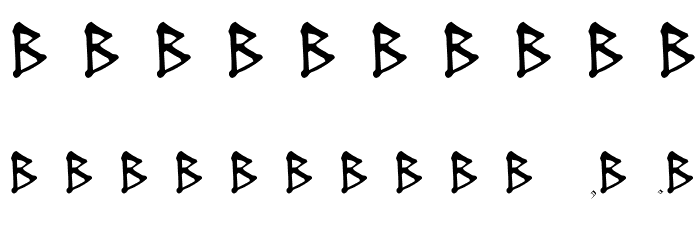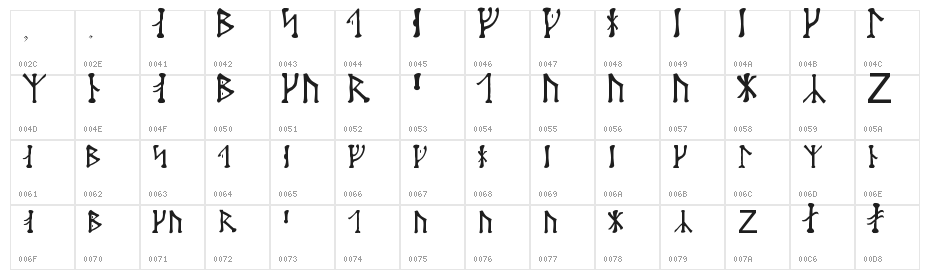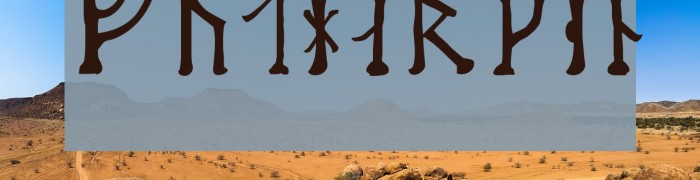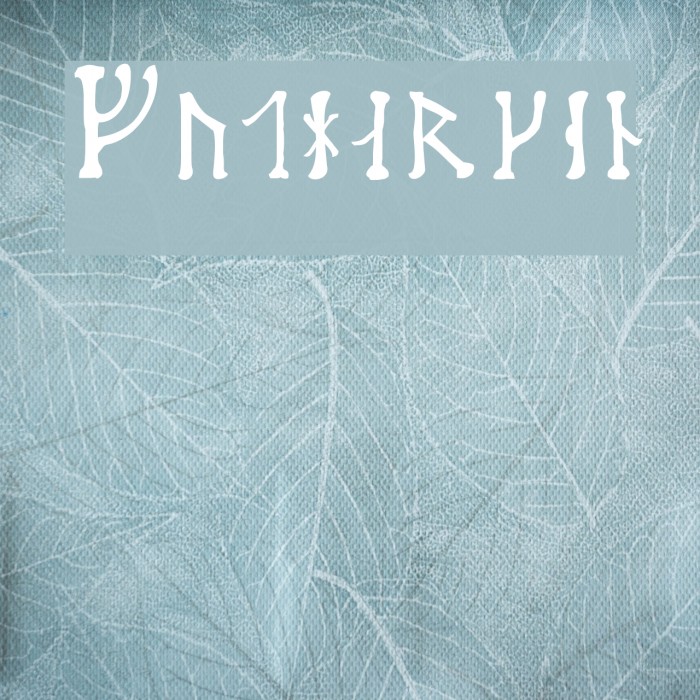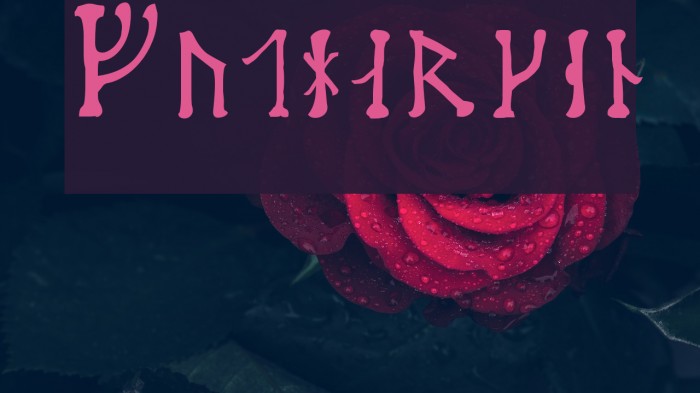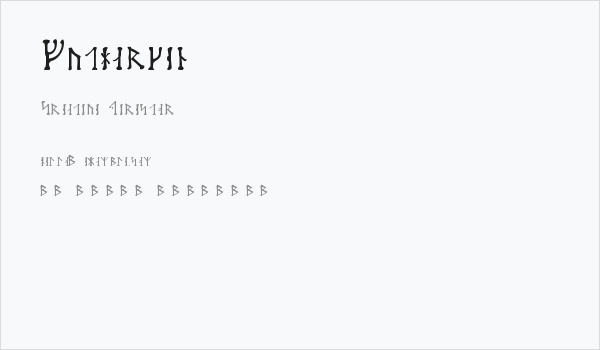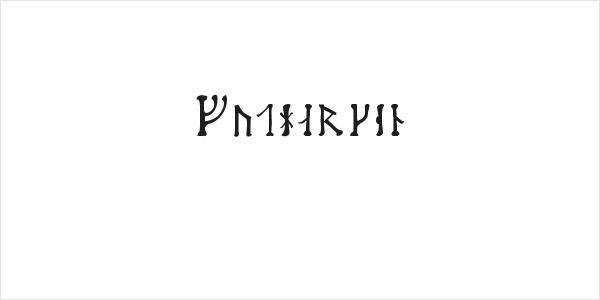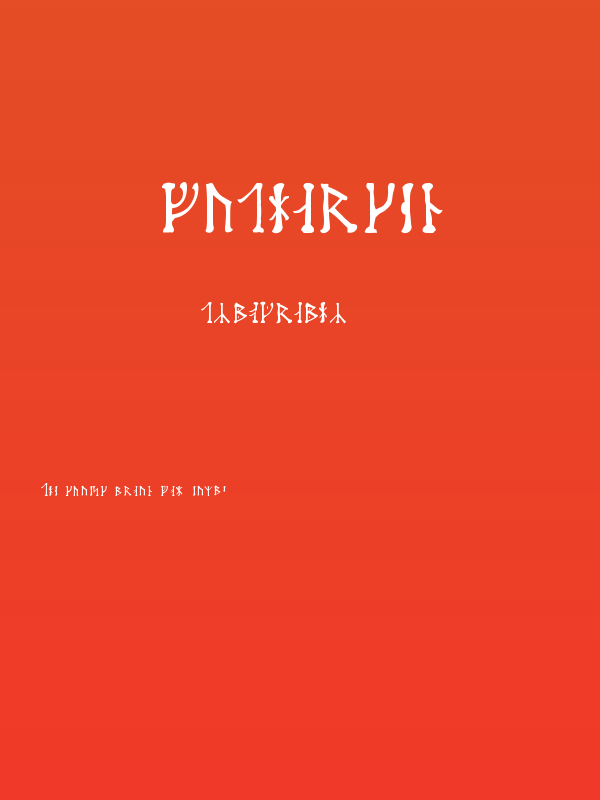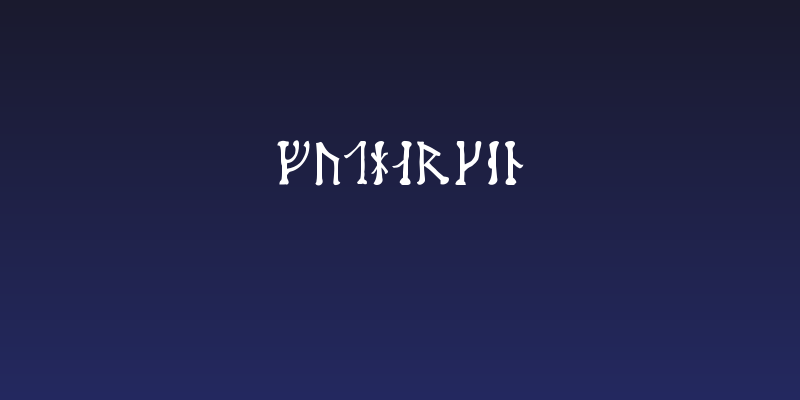
Futharken Font
Futharken Description
This font is inspired by ancient runic alphabets, featuring angular and geometric shapes that evoke a sense of mystery and antiquity. The characters are bold and distinct, with sharp edges and a uniform stroke width that gives them a strong presence. The design is reminiscent of historical scripts used in Northern Europe, characterized by its unique and decorative style. Each letter is crafted to maintain a consistent aesthetic, making it suitable for projects that require a historical or fantasy theme. The font's distinctiveness lies in its ability to convey an ancient and mystical atmosphere, making it ideal for creative projects that aim to capture the essence of ancient cultures.
| Proposed Projects | Ideal for fantasy-themed designs, historical recreations, game titles, and decorative posters. |